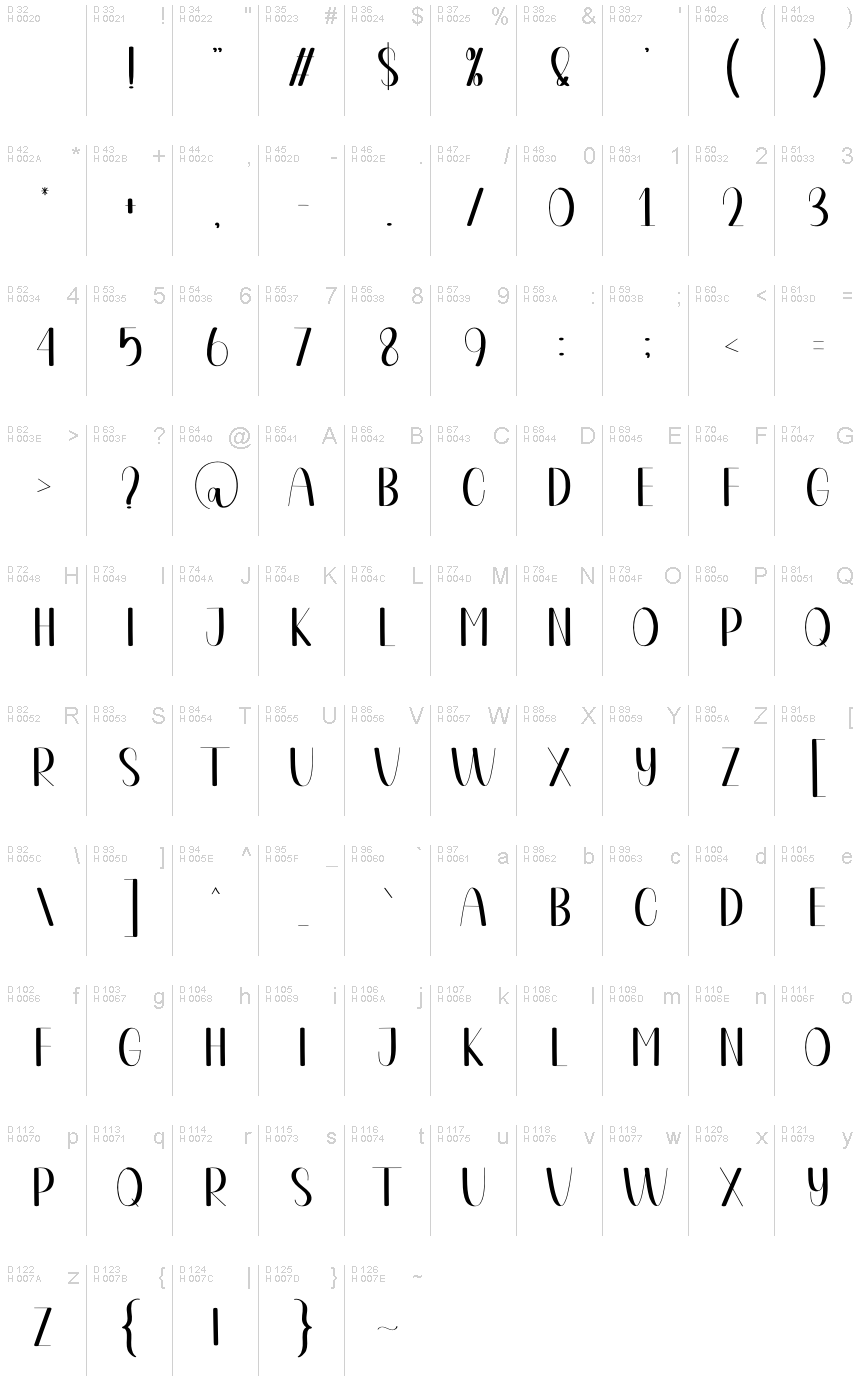
Desire
Desire font, crafted by Scratchones, exudes a captivating charm with its handwritten style that effortlessly combines elegance and personality. The condensed form draws the eye, making each letter a striking statement of individuality. Its playful yet polished aesthetic is perfect for adding a touch of warmth to any design.
This distinctive font shines in branding initiatives, event invitations, or personal projects where a friendly and approachable vibe is essential. Whether gracing headlines or subtle annotations, Desire brings an artistic flair that enhances visual communication while maintaining legibility. Its unique characteristics invite creativity, making it an ideal choice for those seeking to infuse their work with authenticity and style.